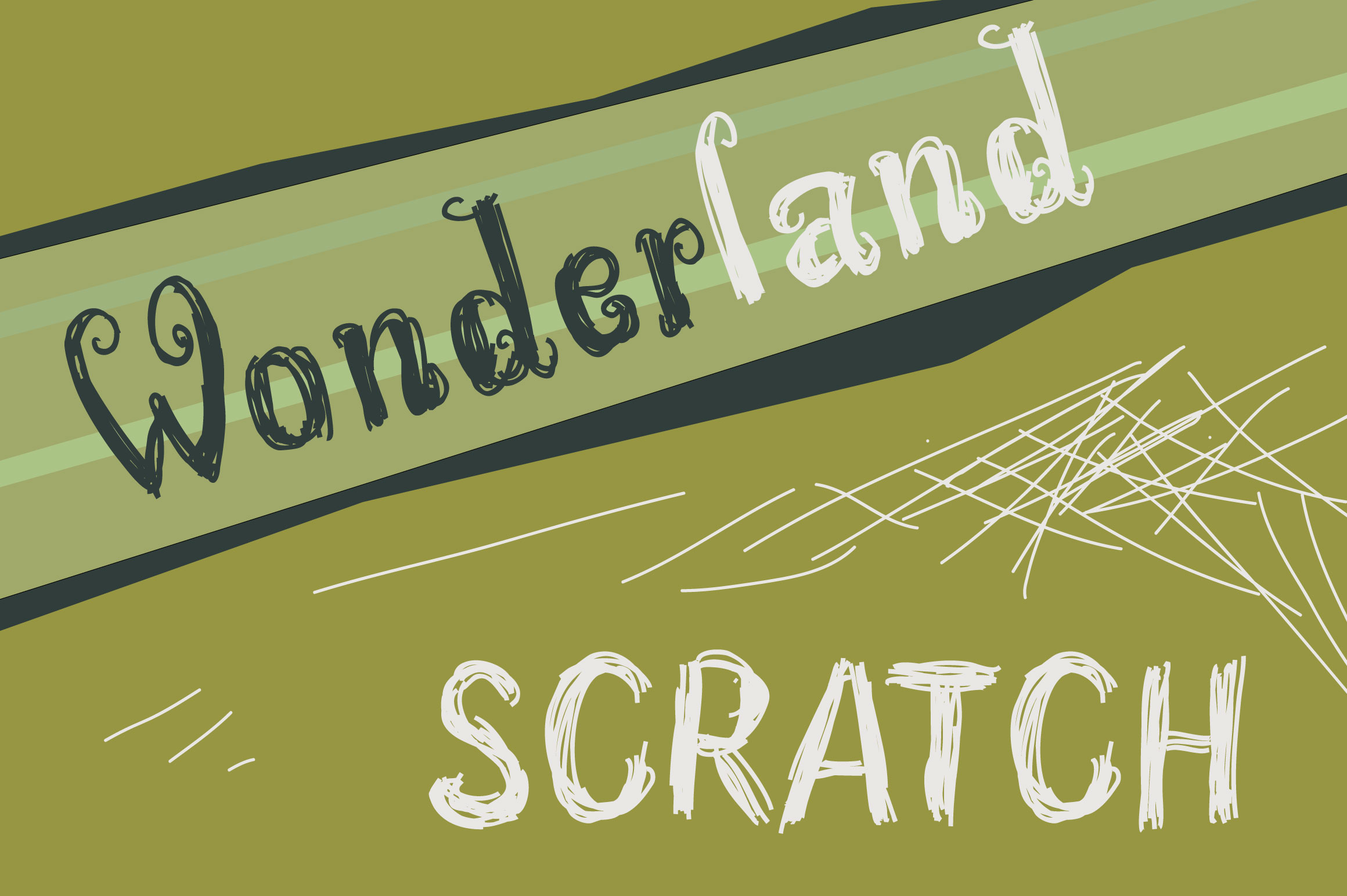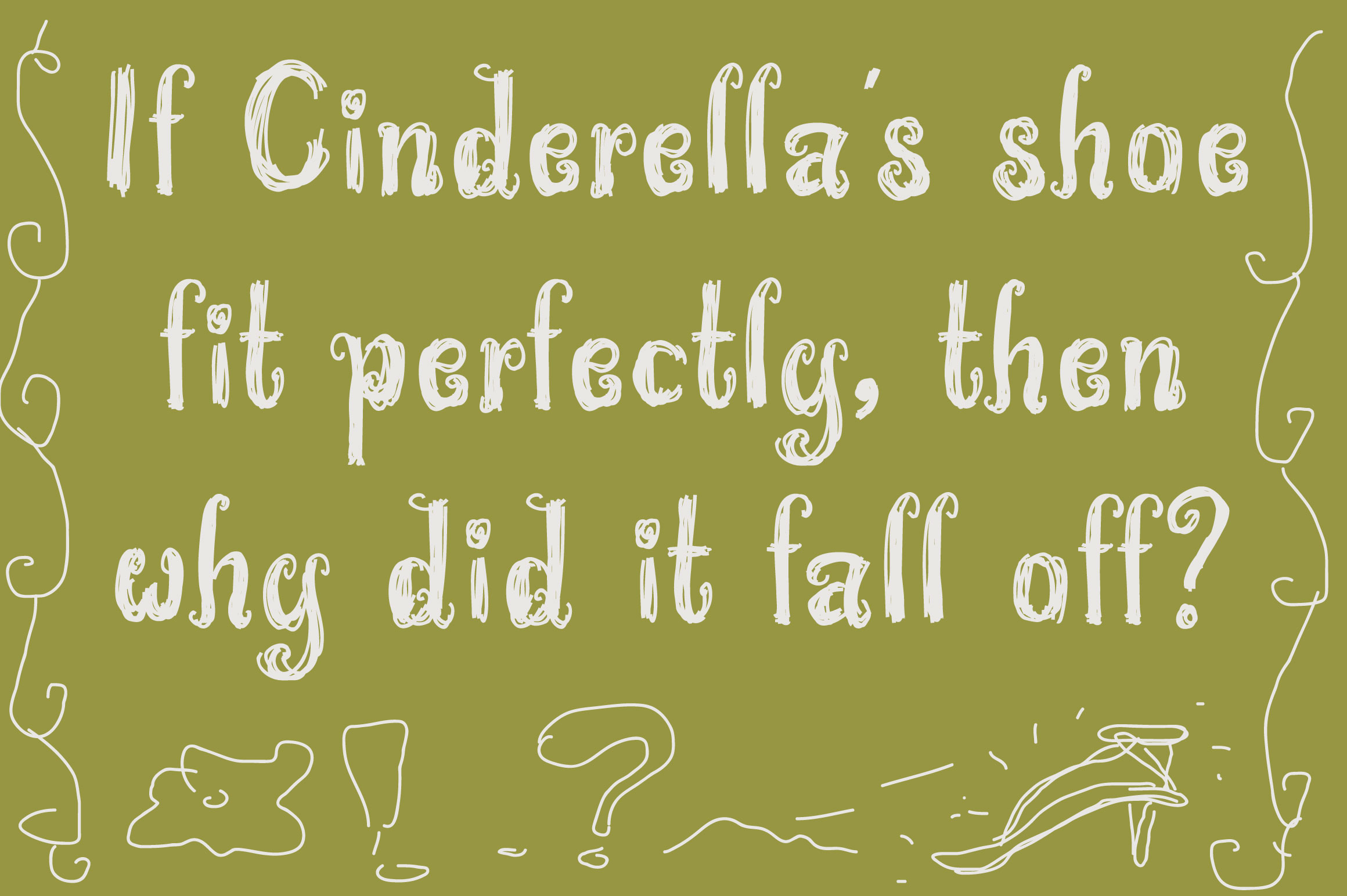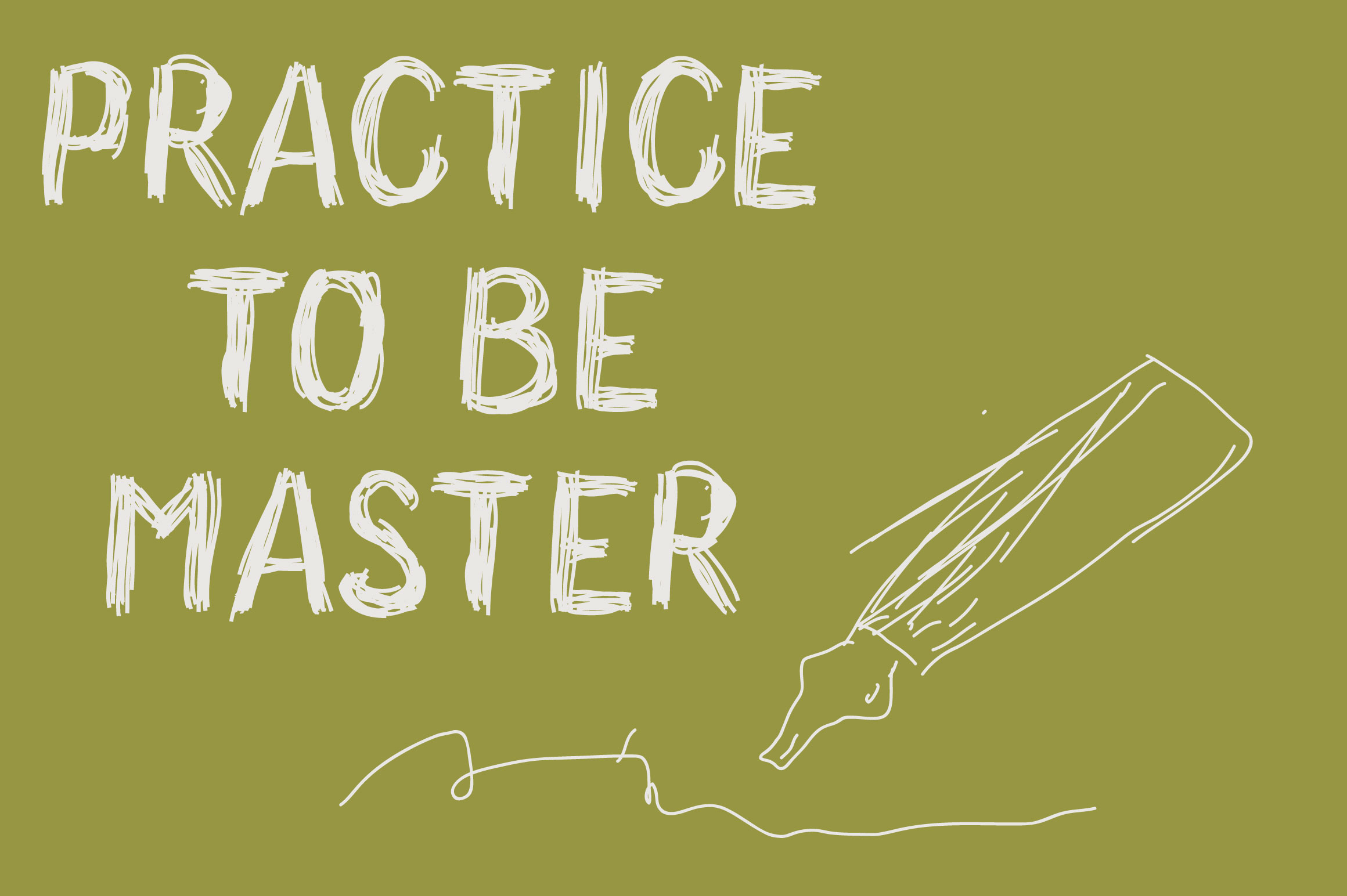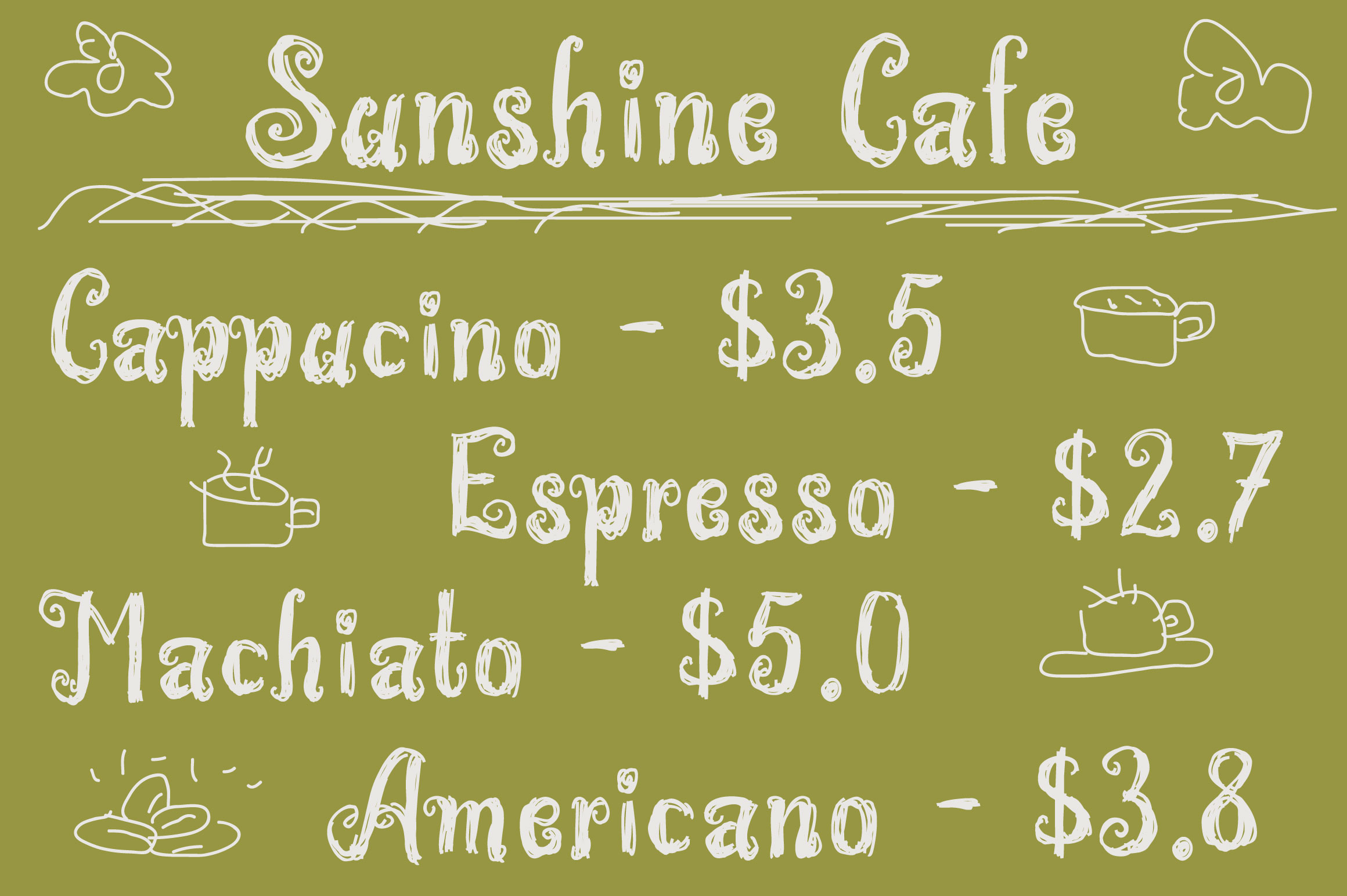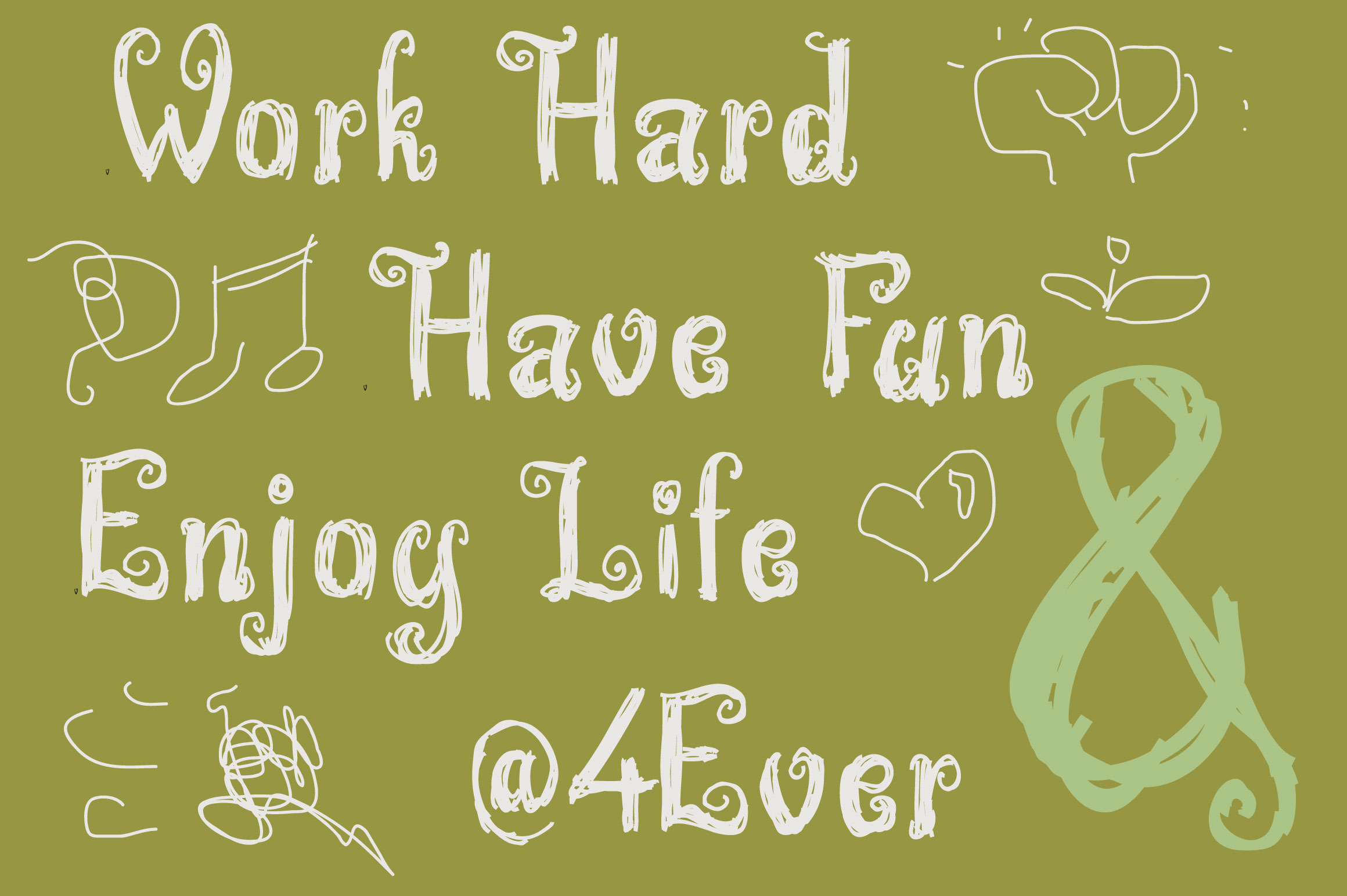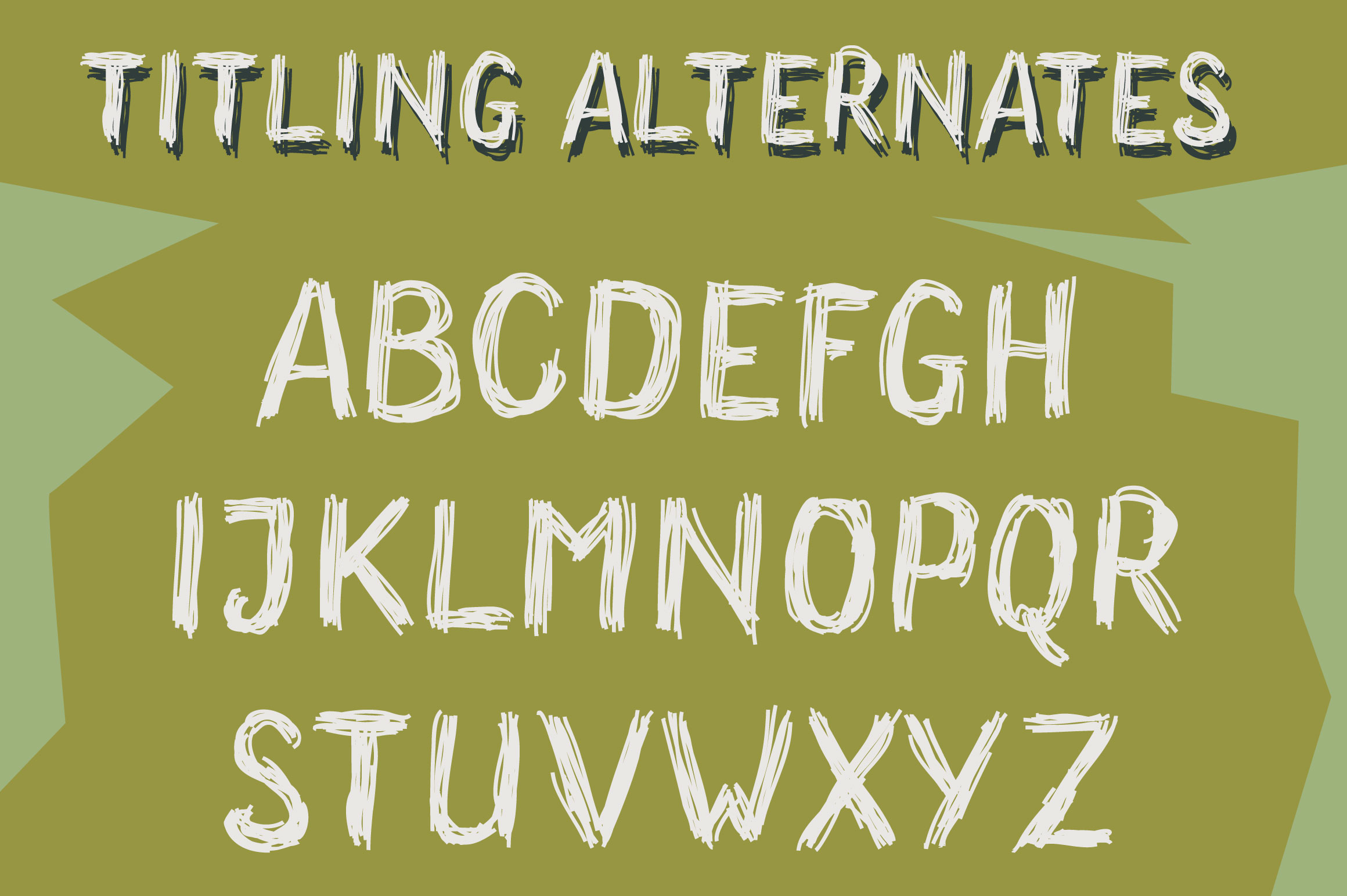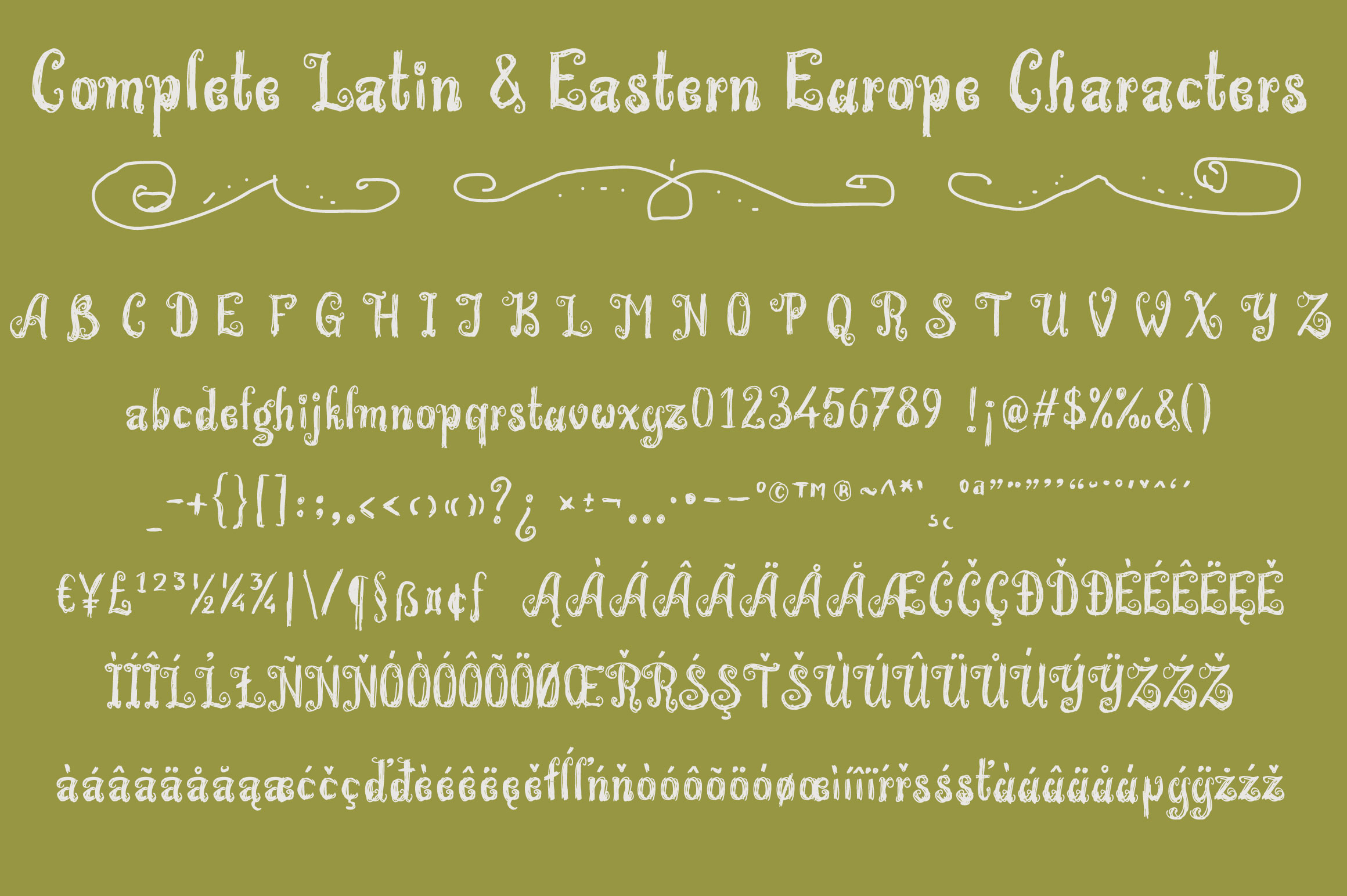
Wonderland Scratch Font
About Wonderland Scratch Font
Wonderland Scratch is a cute and fun handwritten font, intended to give a charm and carefree vibe to your designs. This easy-to-read font is ideal for giving a homemade look to all your creative projects.